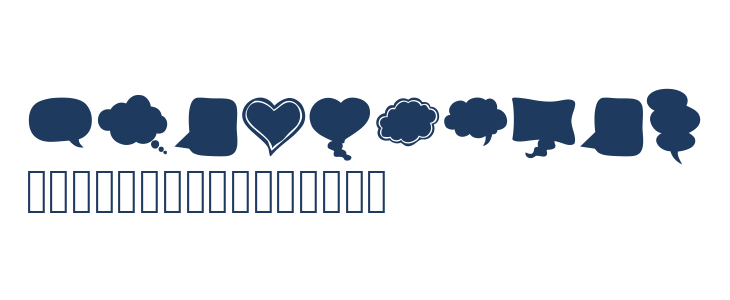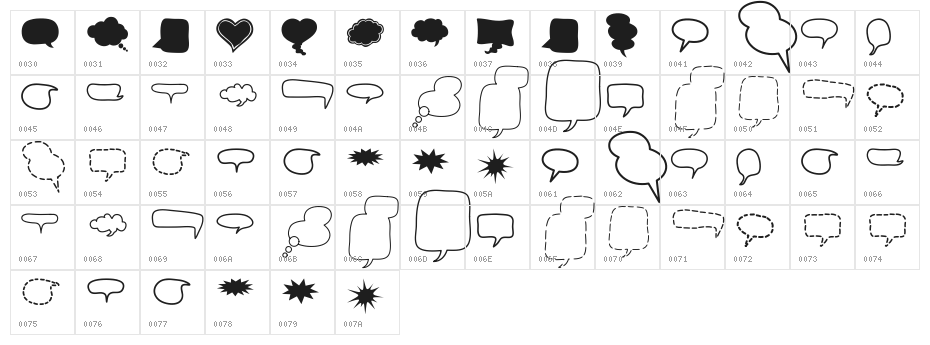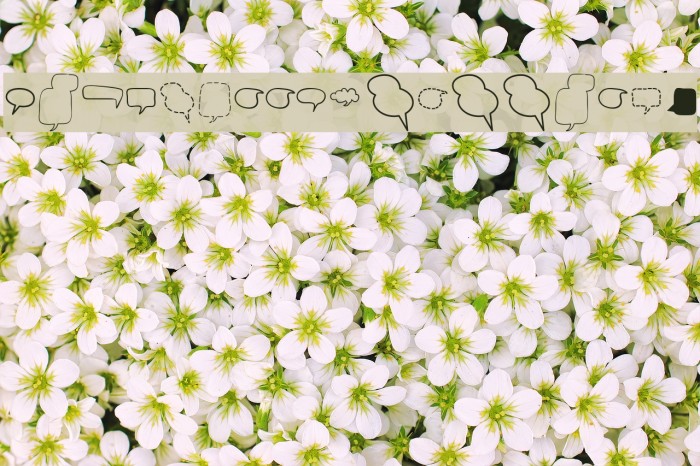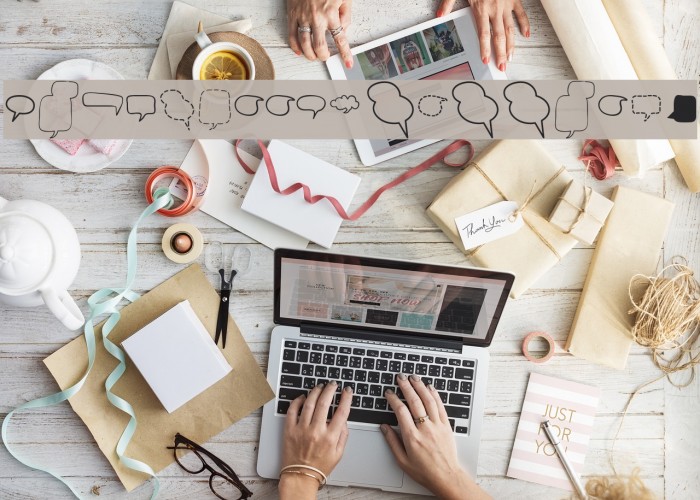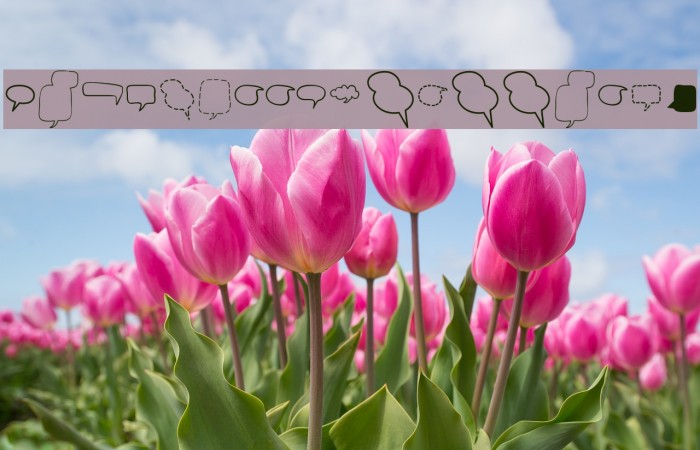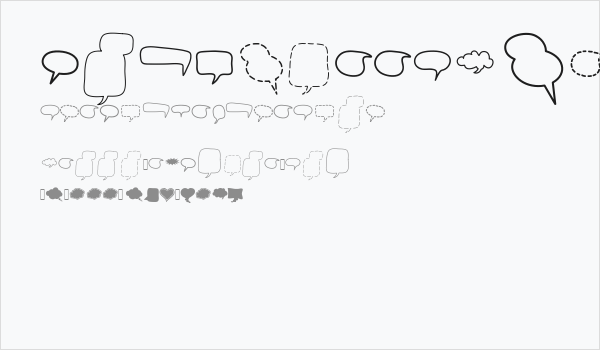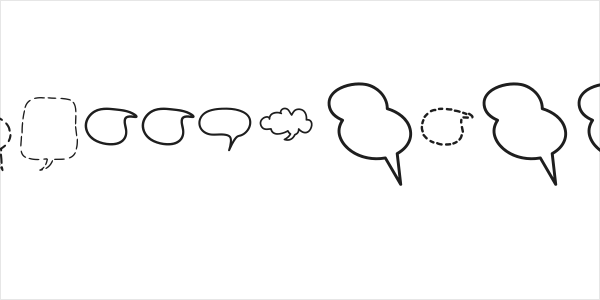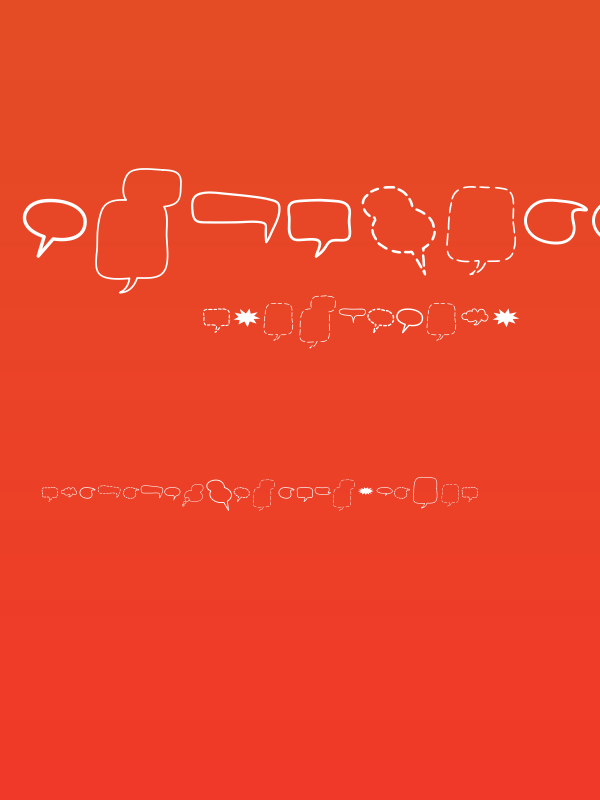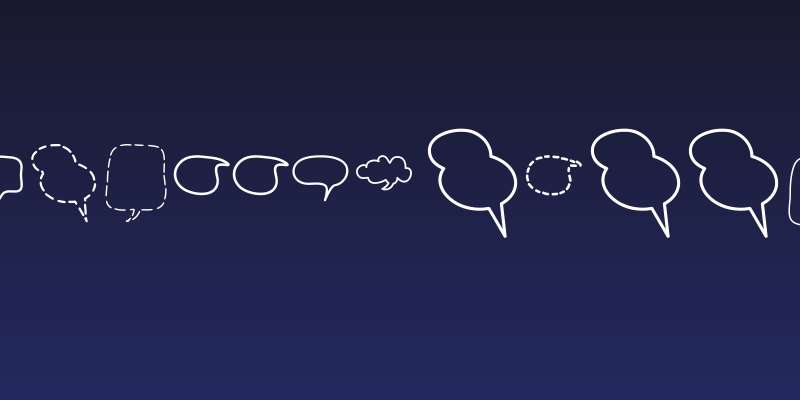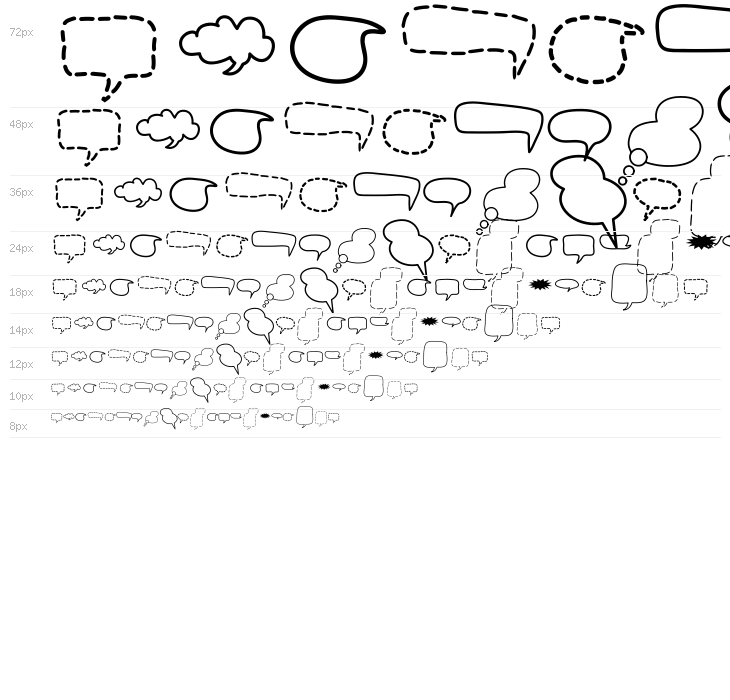
Alin Speech Bubbles 2 Font
Alin Speech Bubbles 2 Description
A collection of hand-drawn speech and thought bubble shapes, including solid, outlined, dashed, and decorative comic-style elements, with a playful and informal appearance.
| Overall Style | Playful, Comic, Decorative |
| Use Case | Icons, Decorative elements, Comic design |
| Proposed Projects | Comics, graphic novels, children's books, playful posters, social media graphics, and creative presentations. |